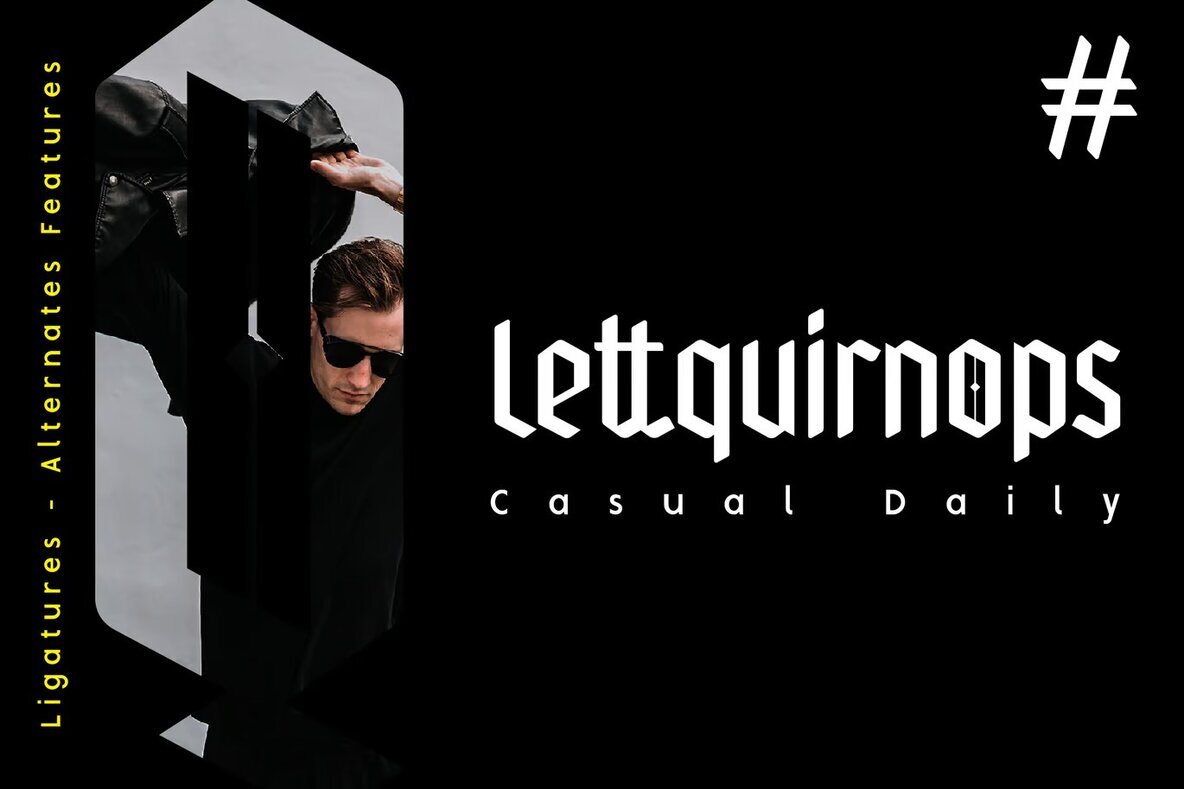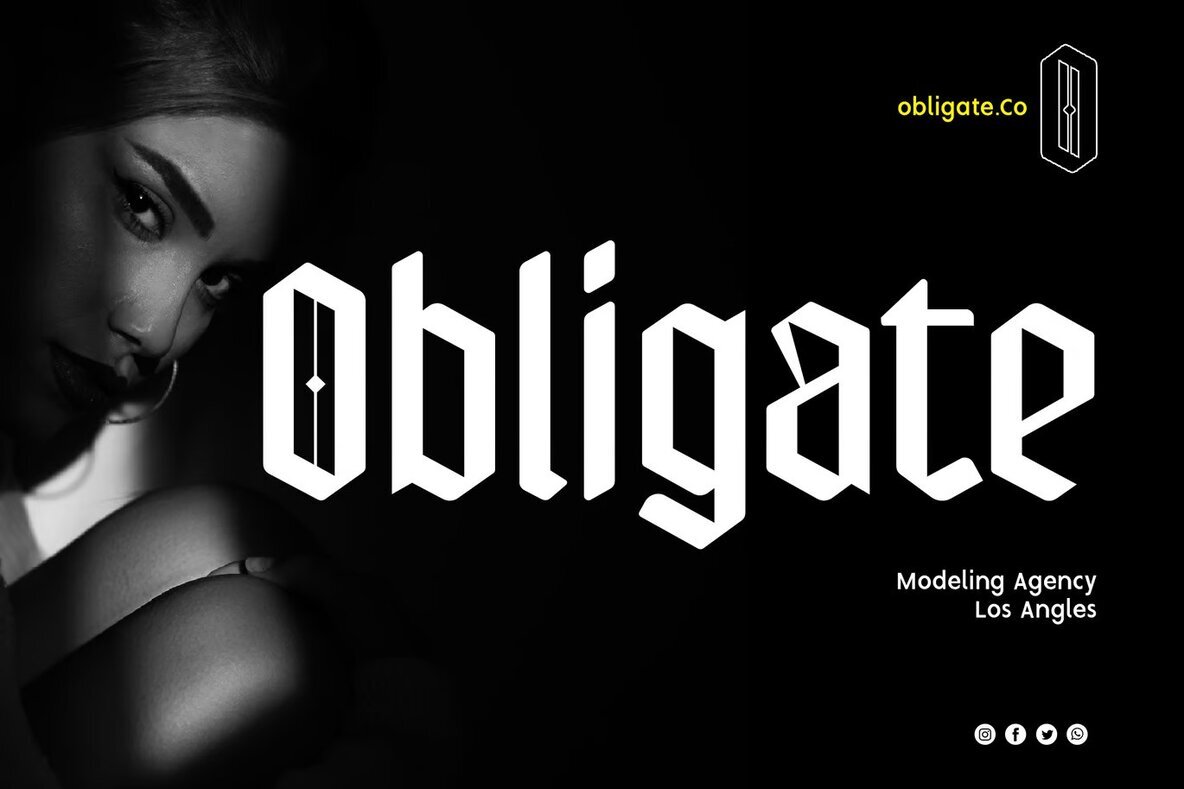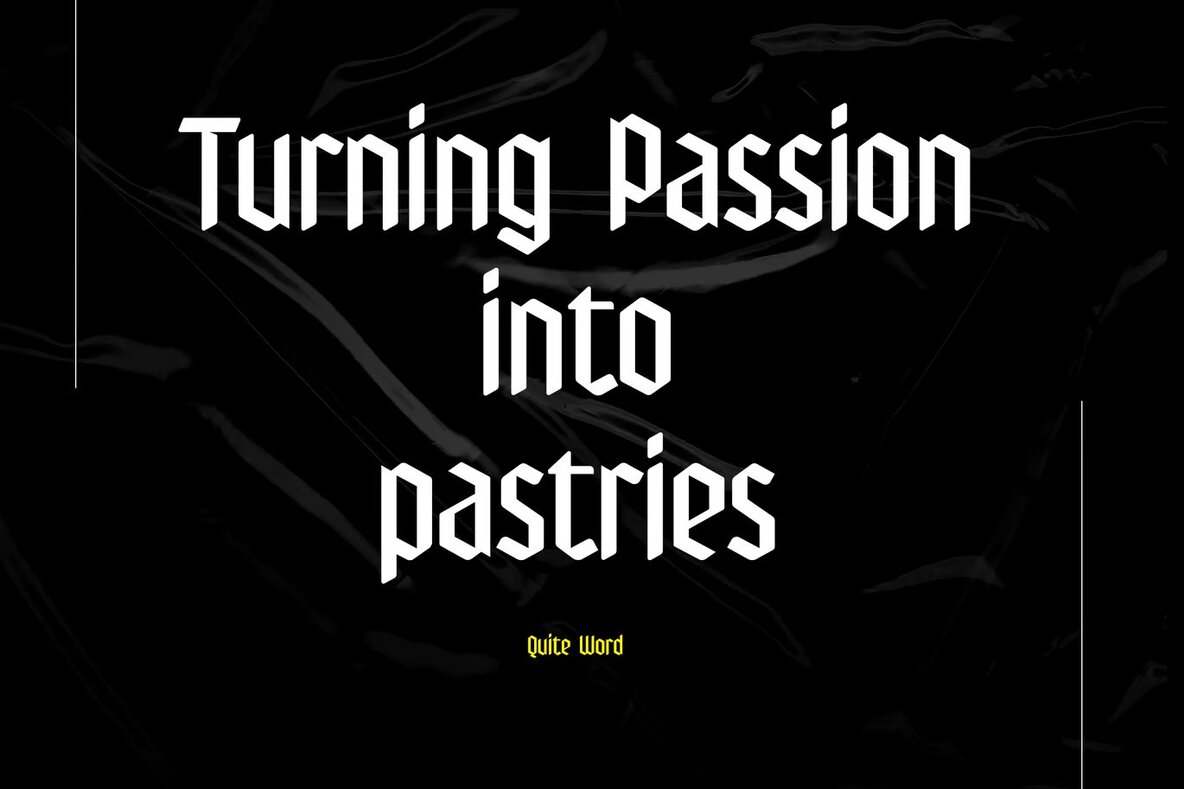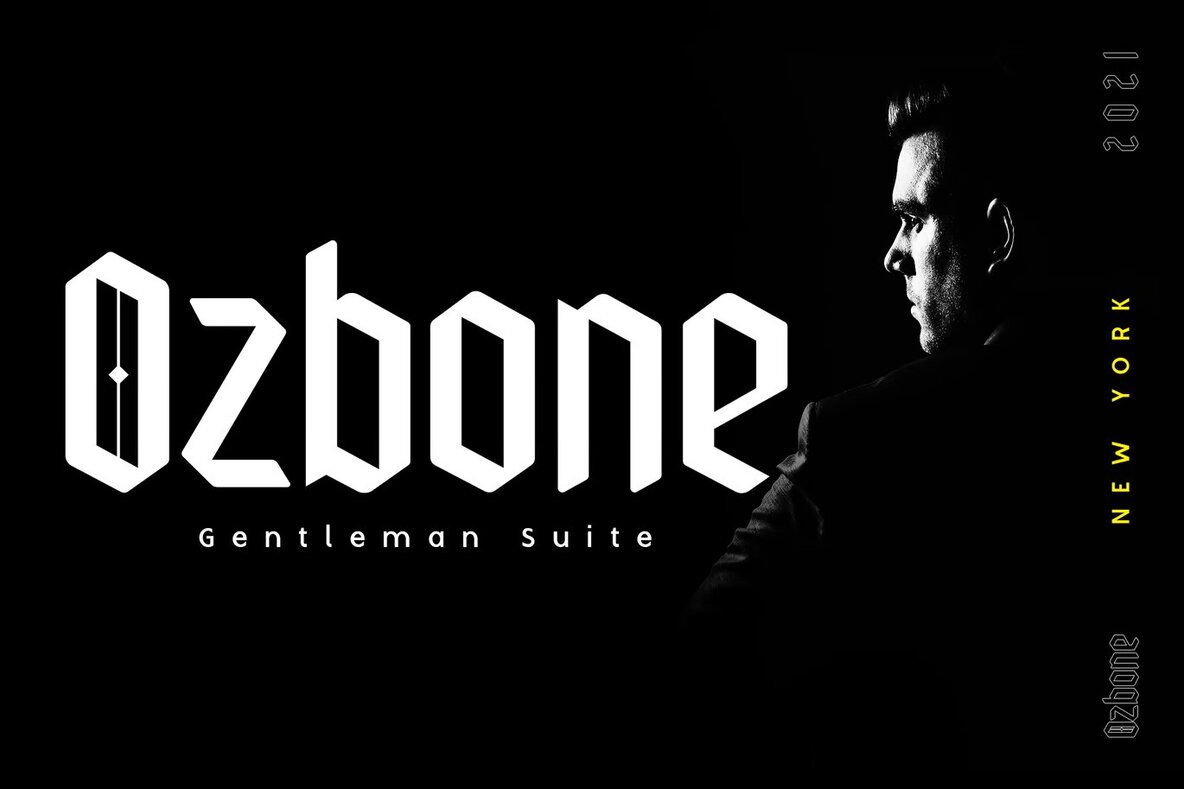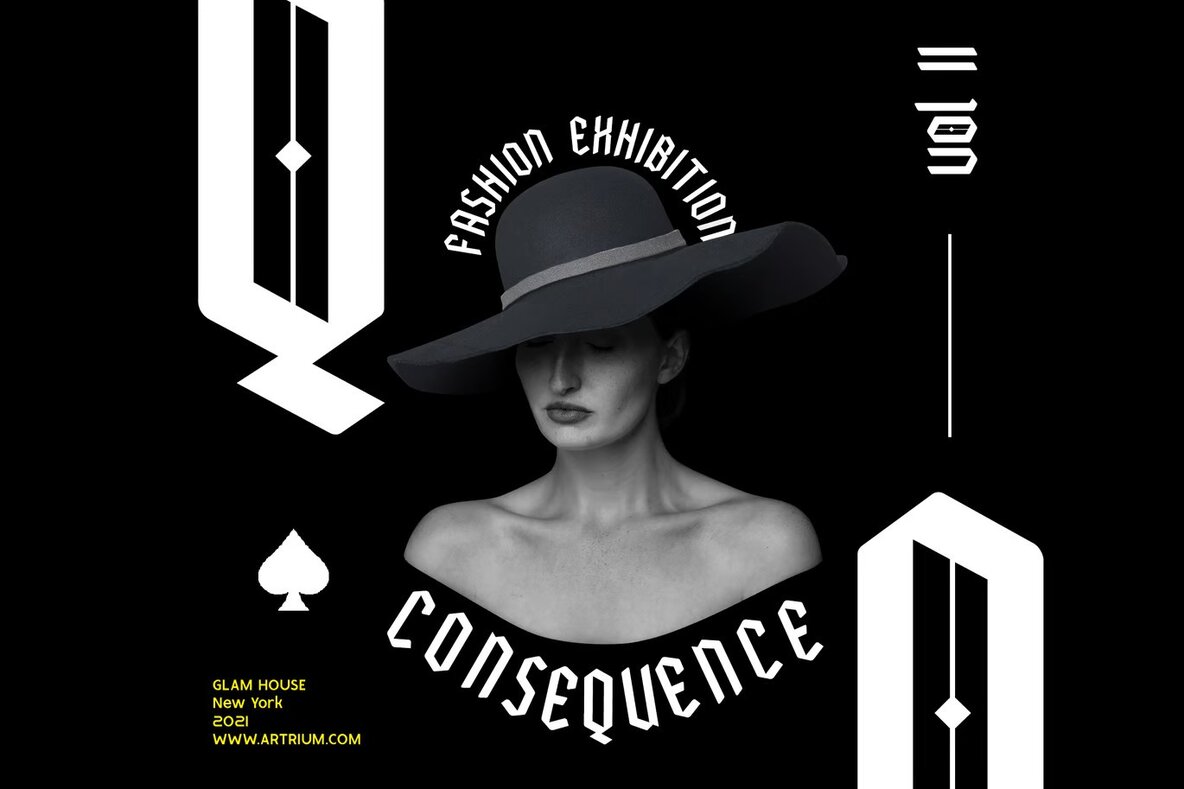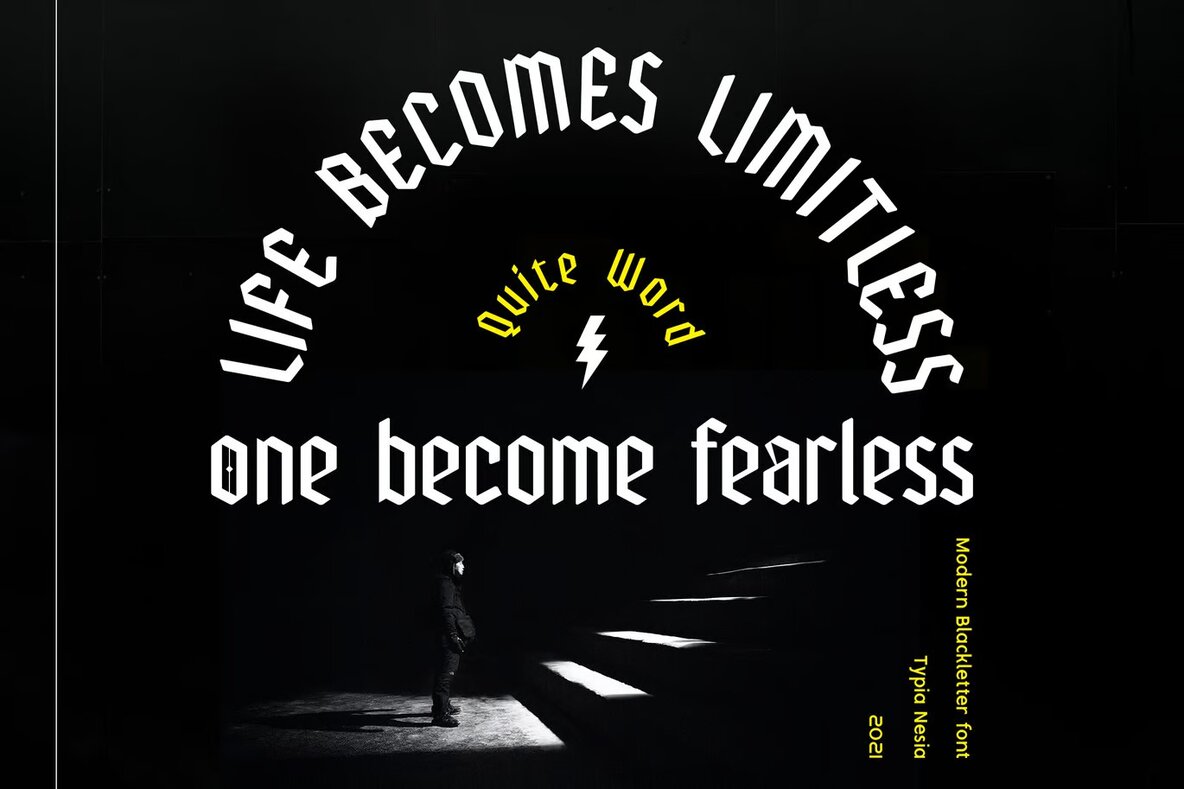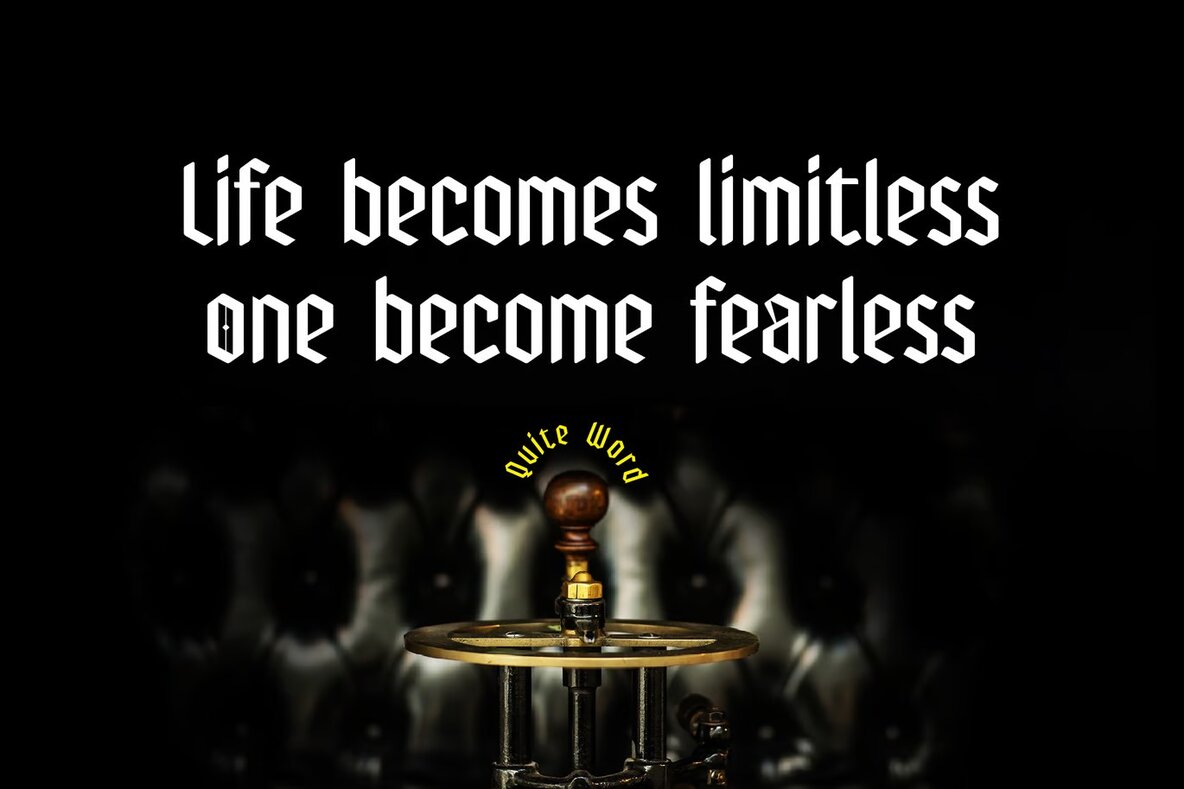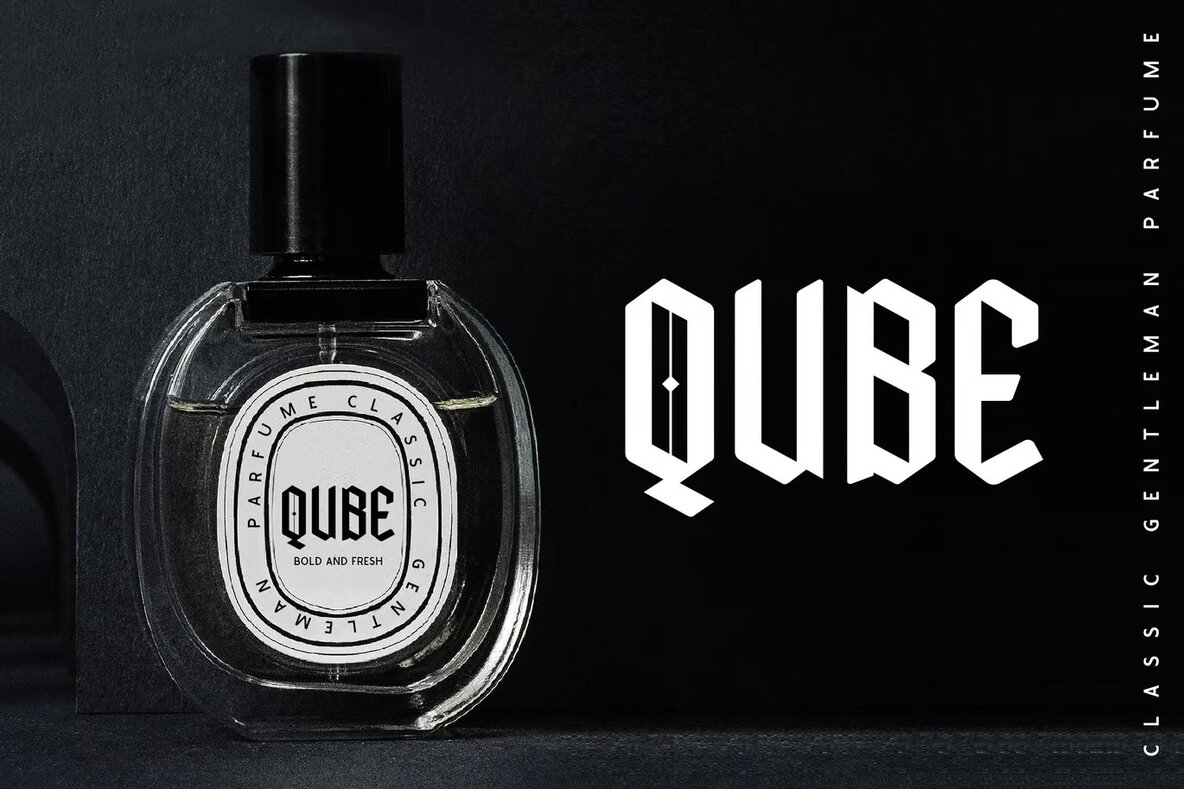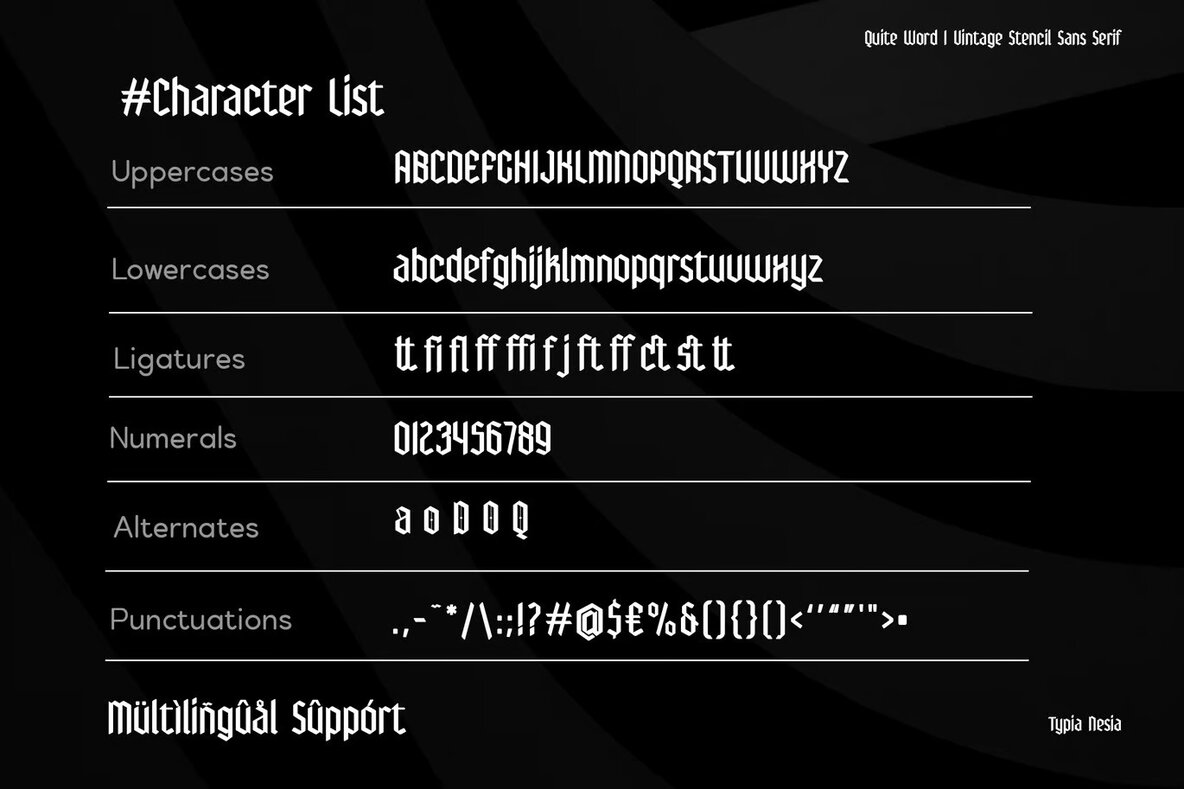
Quite Word Font
Quite Word
This blackletter font exudes an ornate and historic charm reminiscent of the medieval gothic era. With its traditional and elegant curves, it is perfect for projects needing a formal, vintage touch such as certificates, wedding invitations, historical fiction book covers, and thematic posters. Its bold and dramatic appearance makes it an ideal choice for headlines and display typography, adding a timeless and artistic flair to any design.